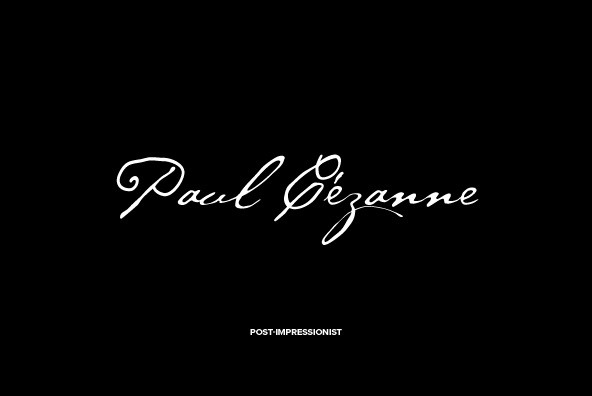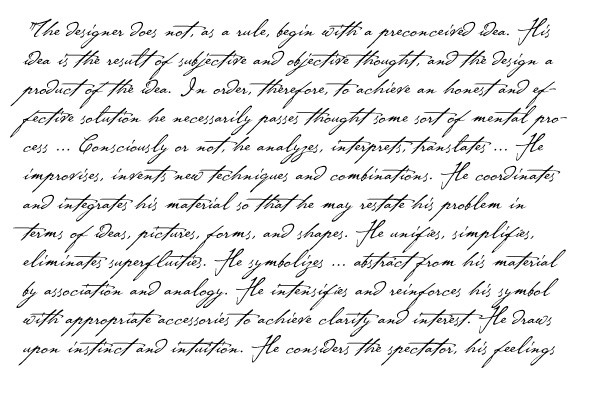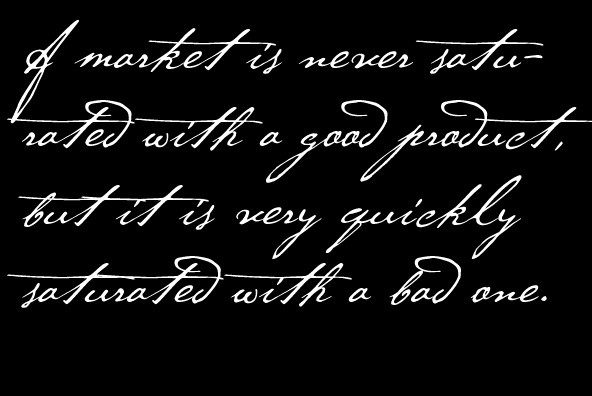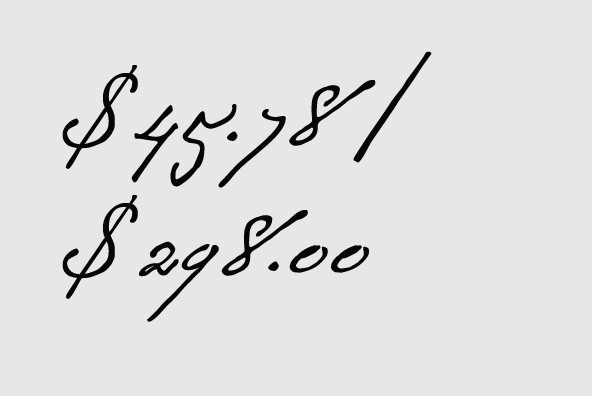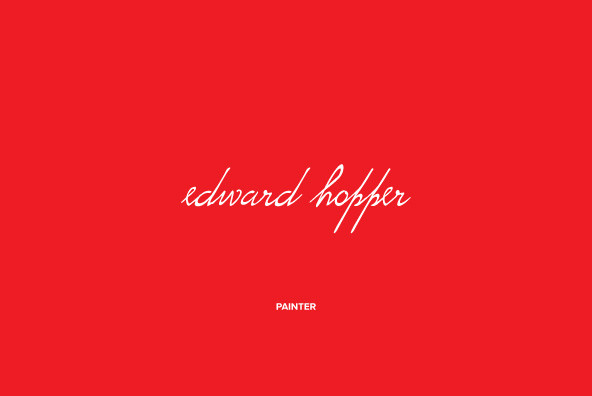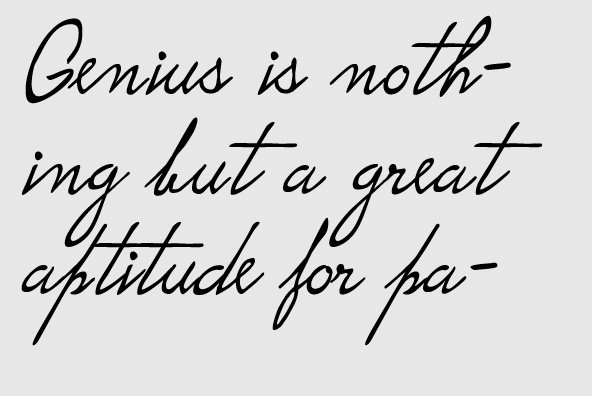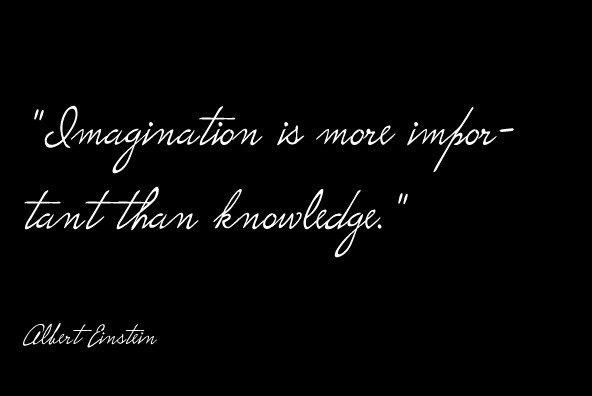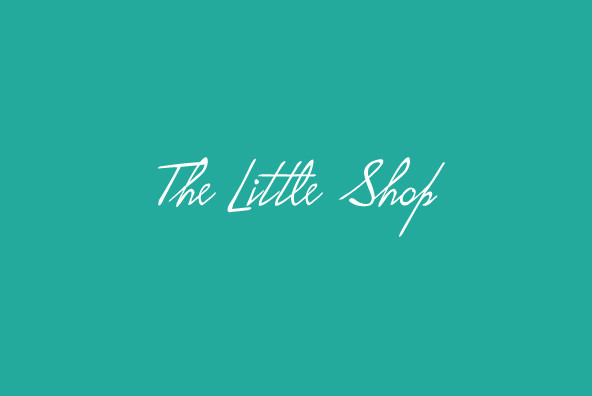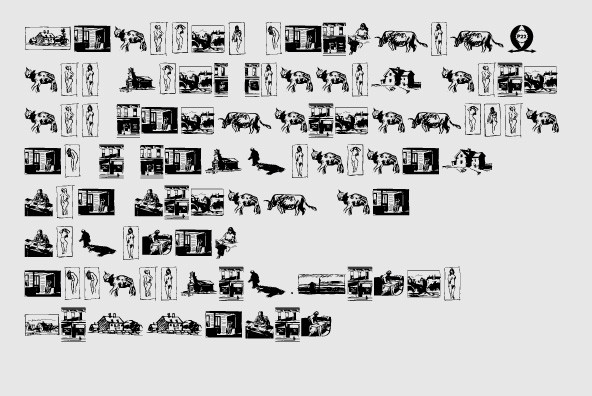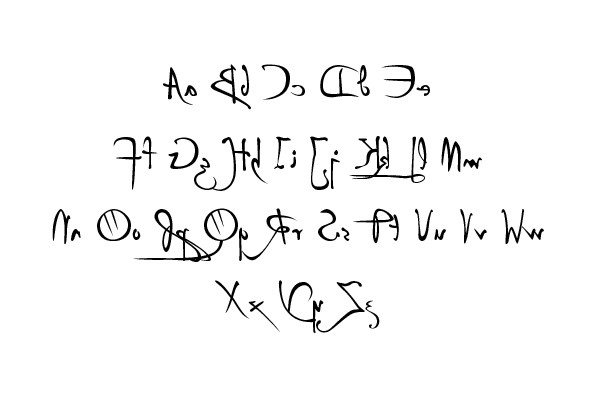
The P22 Artist Signature Font Pack includes 17 handwriting and dingbat fonts inspired by famous artists including Leonardo da Vinci, Edward Hopper, Vincent van Gogh and of course the ever popular Cezanne font.
The P22 Artist Signature Font Pack includes 17 handwriting and dingbat fonts inspired by famous artists including Leonardo da Vinci, Edward Hopper, Vincent van Gogh and of course the ever popular Cezanne font. The design of artist handwriting fonts was P22's original concept as well as the design of the font set packaging. Originally packaged within 45-rpm polyseal bags, the sets found instant appeal and success on the shelves of museum store and gallery gift shops around the world.